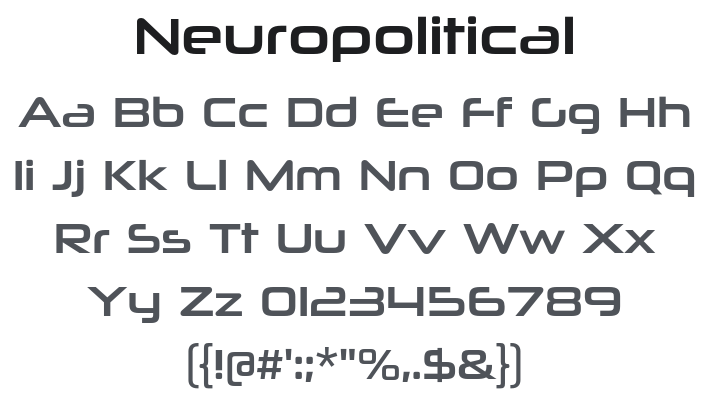
Neuropolitical Font
About Neuropolitical
Neuropolitical refines the late-1990s techno aesthetic of Neuropol into a sharper, more industrial form. Its squared terminals and clean geometry create a sense of engineered precision, while generous counters preserve clarity across all sizes. Seven weights with italics cover a wide range from lean interface text to commanding headlines. The wide capitals and balanced proportions give it authority without excess, making it ideal for branding, editorial work, posters, and digital environments.